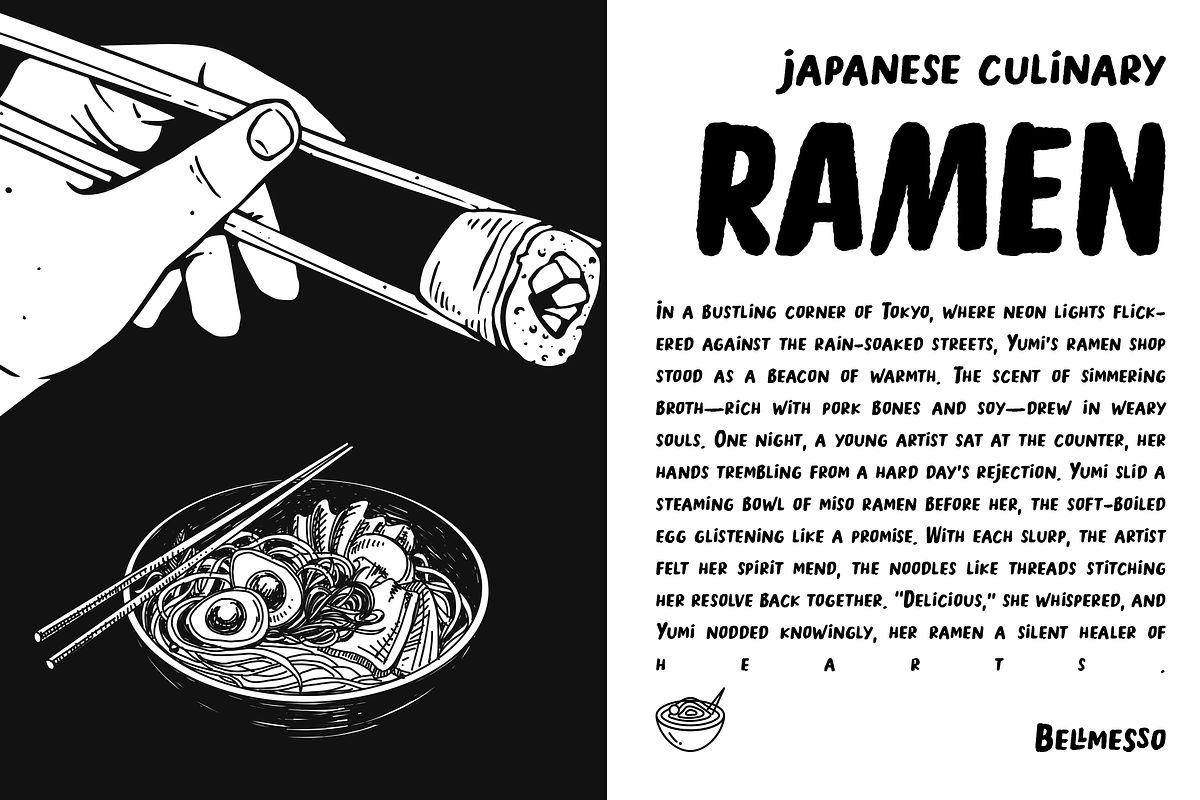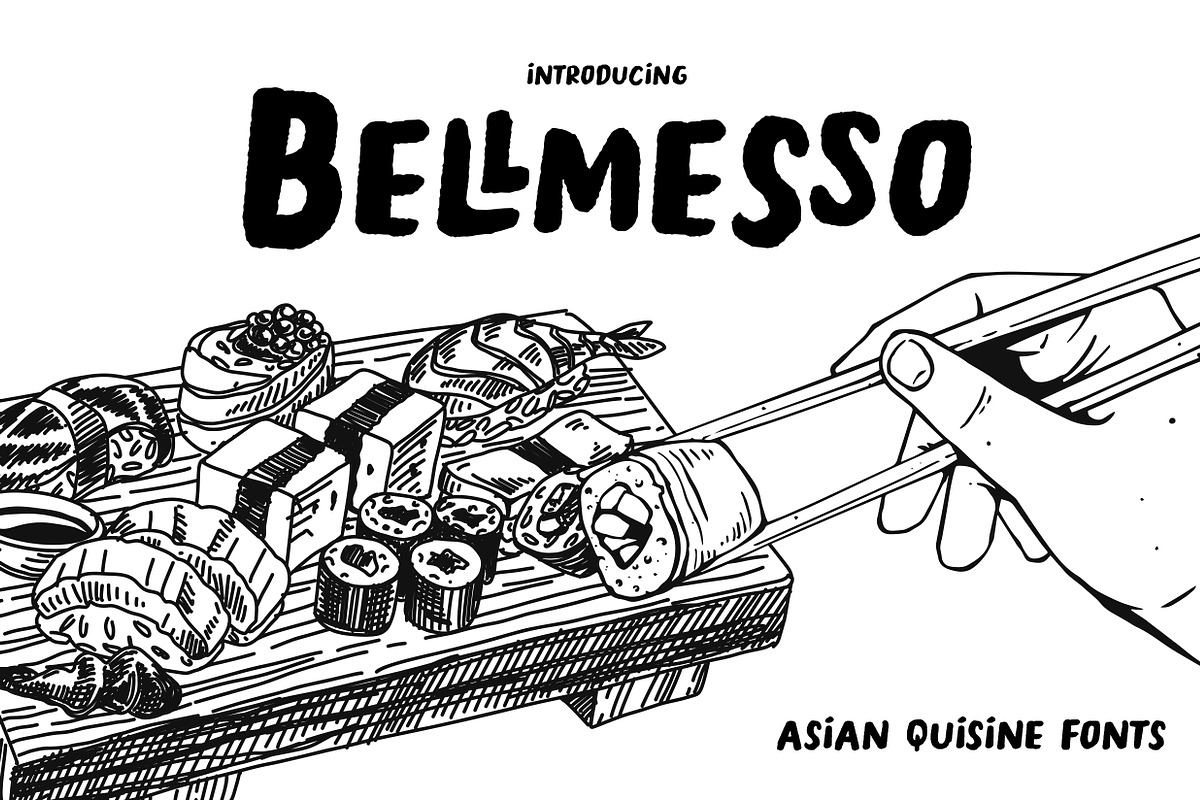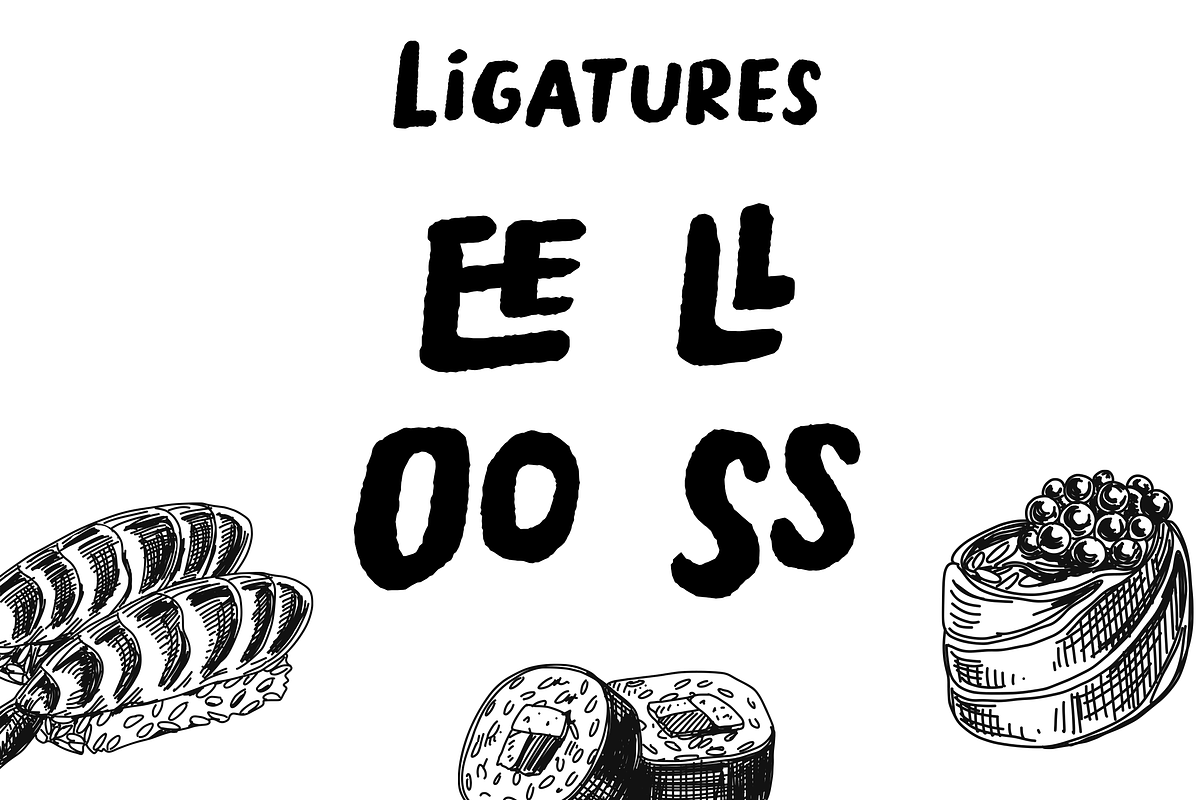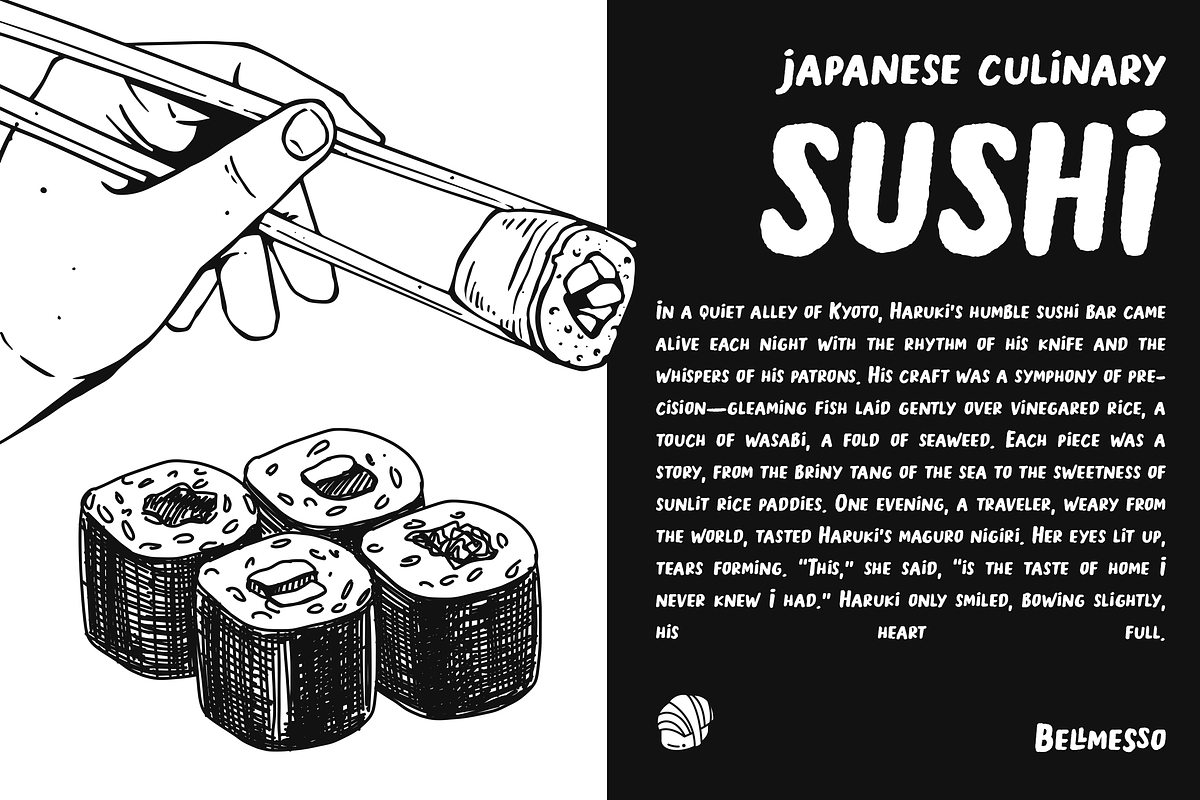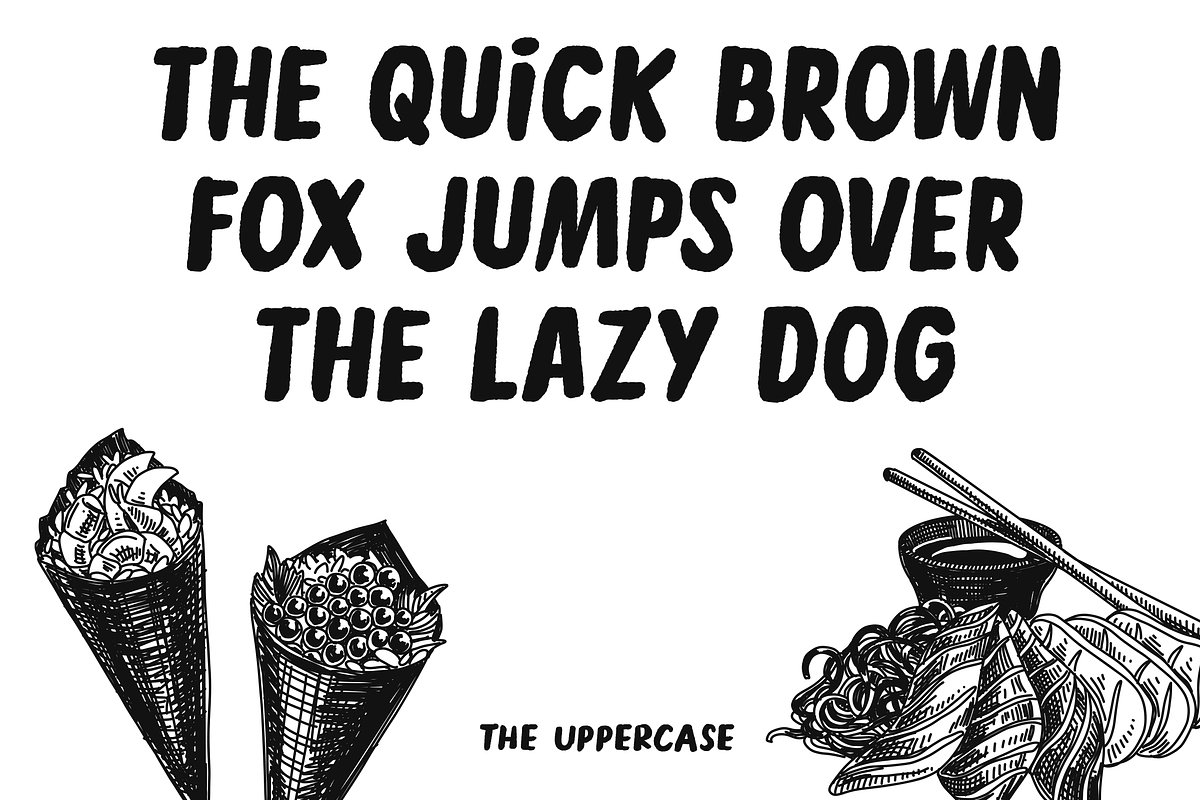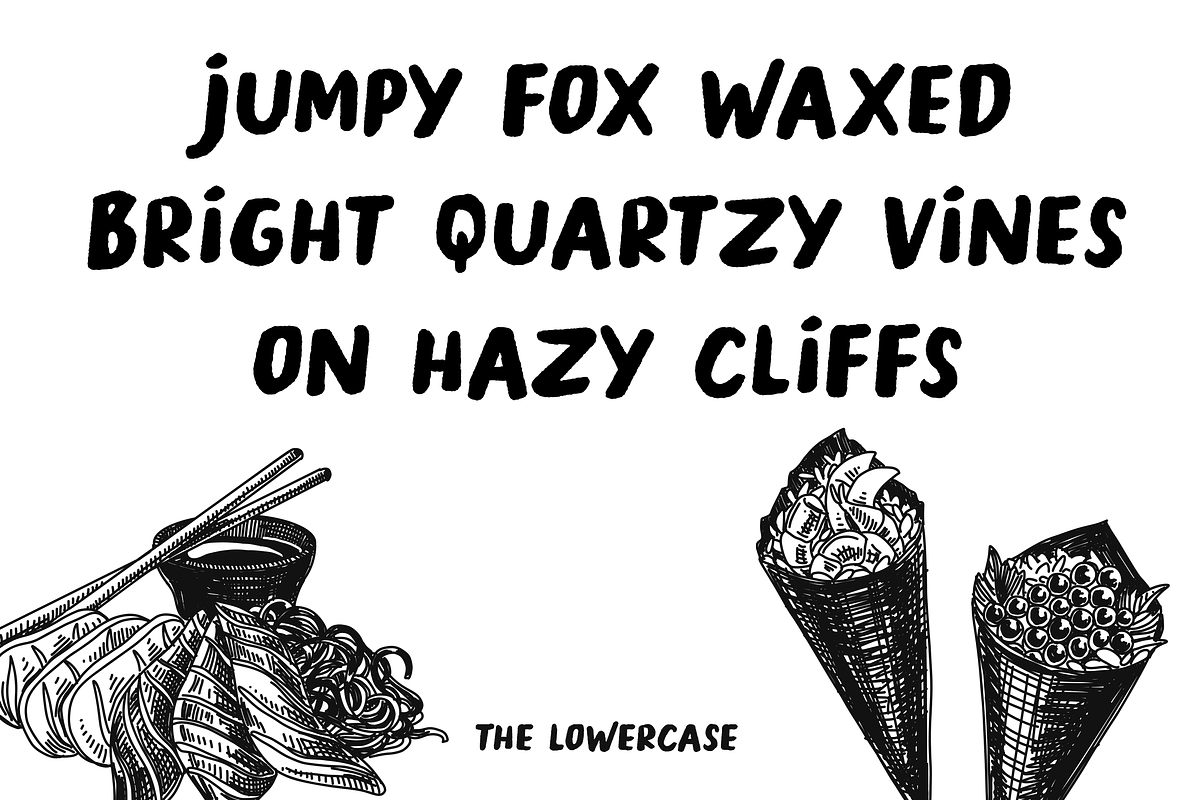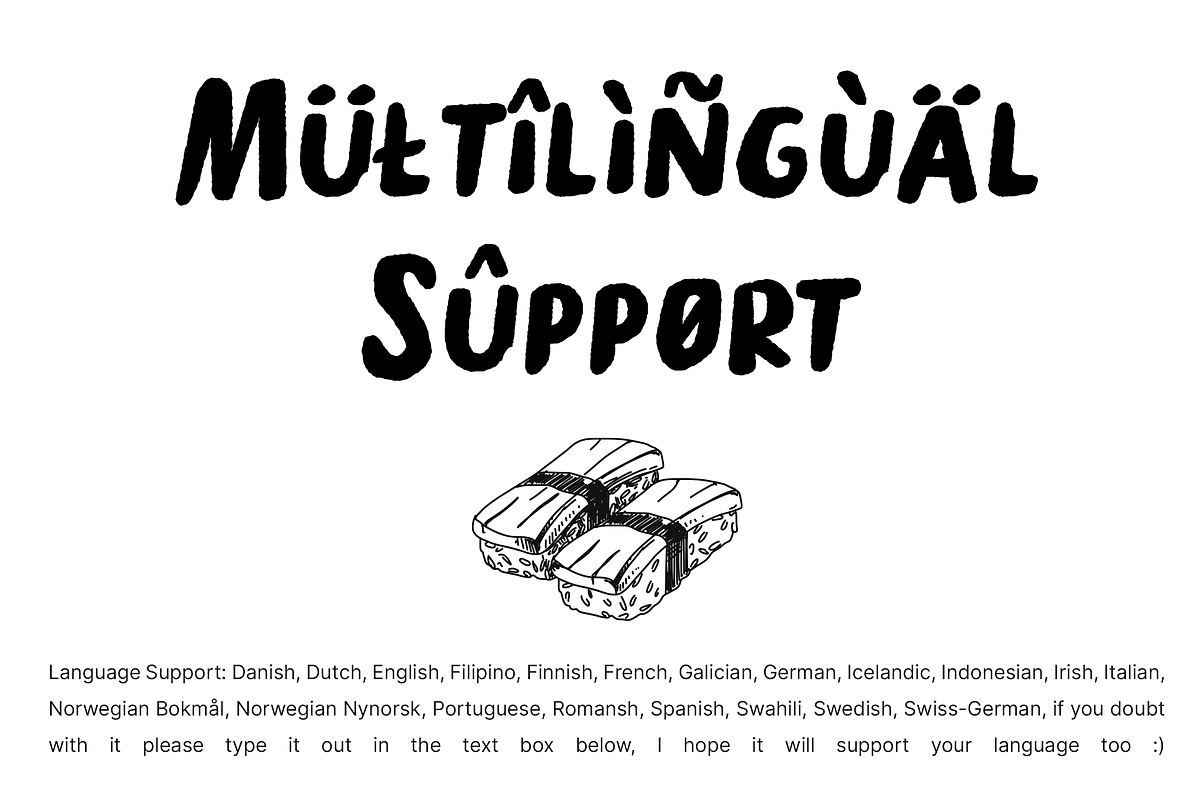
Bellmesso - Asian Quisine Fonts
Bellmesso – The Art of Handwritten Flavor
Introducing Bellmesso, the brush and ink font that brings an organic, authentic touch to every dish on display. Inspired by the artful menu boards of sushi and ramen spots, Bellmesso is the perfect choice for:
- Sushi Bars – Capture the essence of fresh ingredients with a natural, hand-brushed look
- Ramen Shops – Infuse warmth and authenticity into every bowl on your menu
- Handwritten Menus & Signage – Create a personal, welcoming atmosphere that feels straight from the chef’s hand
With Bellmesso, elevate your restaurant’s identity and connect customers to the true art of Asian cuisine—organic, bold, and beautifully crafted.